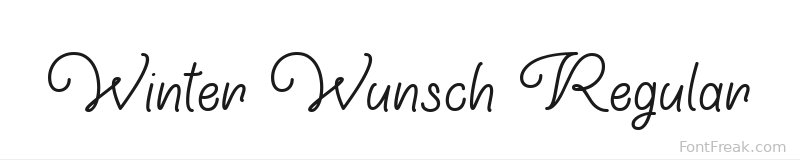
Winter Wunsch Regular
About Winter Wunsch Regular
Winter Wunsch Regular is a captivating script font designed by Misti Hammers, embodying a whimsical charm that evokes the beauty of winter. As a decorative typeface, it features flowing, cursive letterforms that gracefully connect, creating a sense of fluidity and elegance. The stroke weight is moderate, providing a balanced contrast that enhances readability while maintaining artistic flair. The letters exhibit a gentle slant, adorned with subtle flourishes that add a touch of sophistication, making it stand out in any design.
This font is particularly suited for various applications. It shines in wedding invitations, where the romantic and elegant style complements the joyous occasion. It can also elevate holiday greeting cards, lending a festive touch that resonates with the winter season. Restaurant menus would benefit from its artistic flair, drawing attention to special dishes and creating a cozy atmosphere. Additionally, Winter Wunsch Regular is ideal for branding projects aimed at small businesses, especially those in the creative or artisanal sectors, where an inviting aesthetic is essential.
Targeting graphic designers, small business owners, and content creators, Winter Wunsch Regular provides a versatile option for those looking to add a unique character to their projects. Its free availability as a freeware font makes it accessible for various creative endeavors without the burden of licensing fees.
What sets Winter Wunsch Regular apart is its ability to evoke emotion through its design. The combination of elegance and whimsy, paired with its winter-themed inspiration, makes it a delightful choice for both personal and professional projects. For those seeking to enhance their creative toolkit, the Winter Wunsch Regular font free download is an opportunity not to be missed.